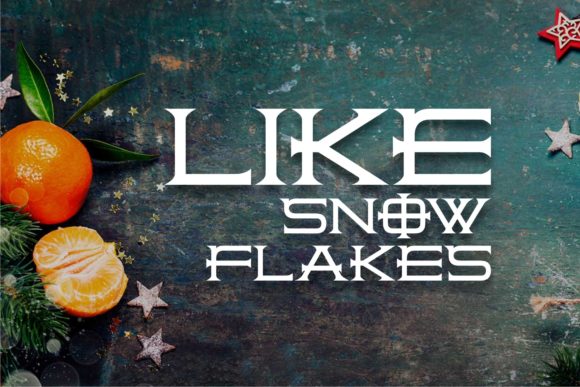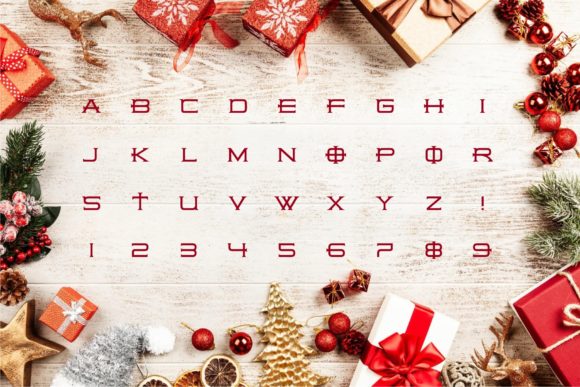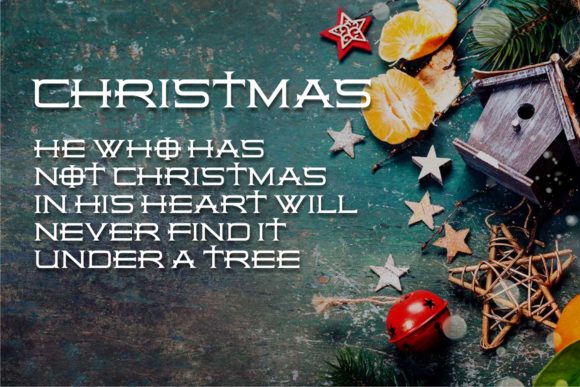
That’s when I discovered Christ Font, and let me tell you, it was a game-changer! 🎉 With its festive and elegant design, I was able to create a stunning holiday card that exceeded my client’s expectations. In this article, I’ll share my experience with Christ Font, its features, and how to use it on different platforms.
Christ Font: An Honest Review
- ✨ Elegant and festive design that’s perfect for the holiday season
- ✅ Wide range of OpenType features, including glyphs and stylistic alternates
- 🎉 Highly legible, even at small font sizes
- 👍 Great for creating holiday cards, invitations, and other festive designs
While Christ Font is an amazing font, there are a few things to keep in mind:
- ⚠️ Some users may find the font a bit too ornate for certain designs
- 🤔 Limited availability of certain OpenType features on certain platforms
The Story Behind Christ Font
Christ Font was designed by a talented typographer who wanted to create a font that would capture the magic and elegance of the holiday season. With its intricate details and festive design, Christ Font is the perfect choice for creating holiday cards, invitations, and other designs.
| Font Name | Christ Font |
| Author | Herulogo |
Q: What type of designs is Christ Font best suited for?
A: Christ Font is perfect for creating holiday cards, invitations, and other festive designs.
Q: Does Christ Font have OpenType features?
A: Yes, Christ Font has a wide range of OpenType features, including glyphs and stylistic alternates.
Q: Is Christ Font easy to read?
A: Yes, Christ Font is highly legible, even at small font sizes.